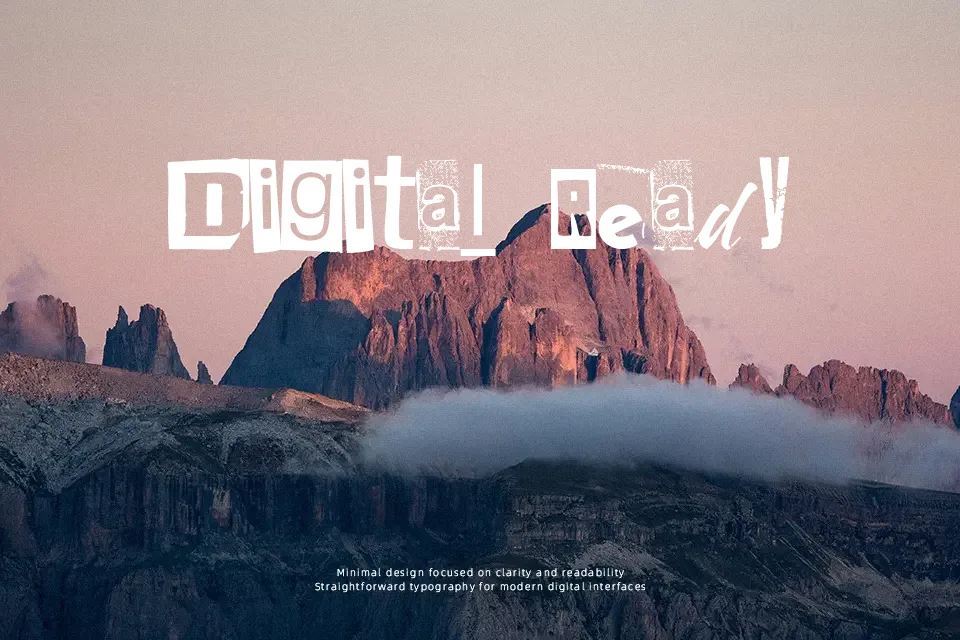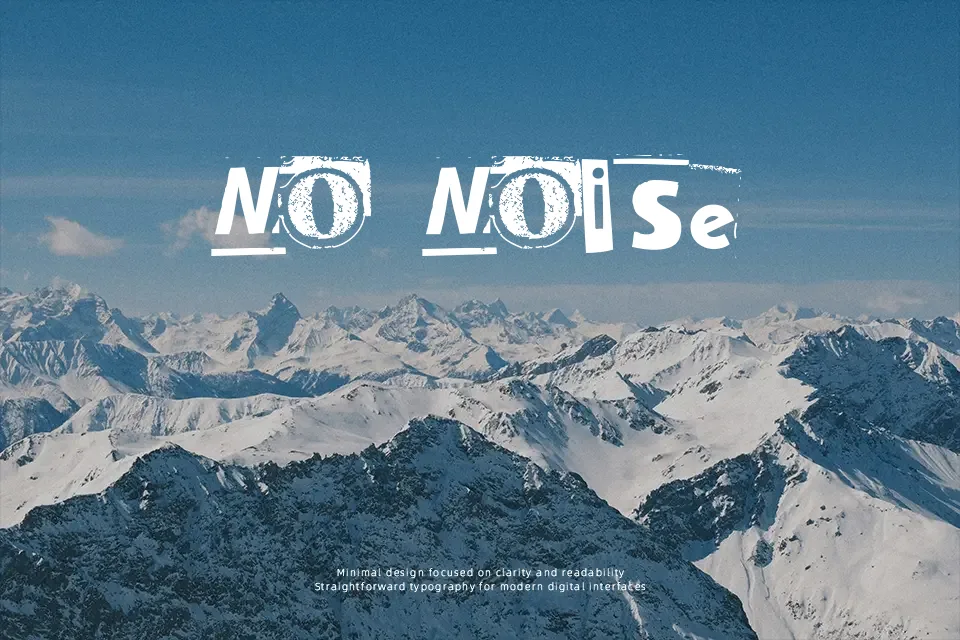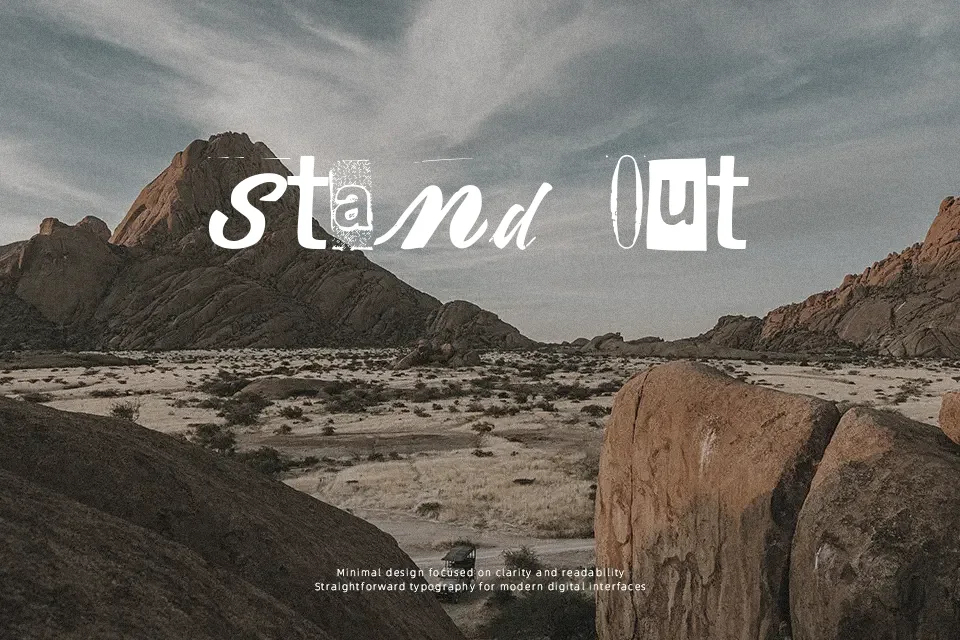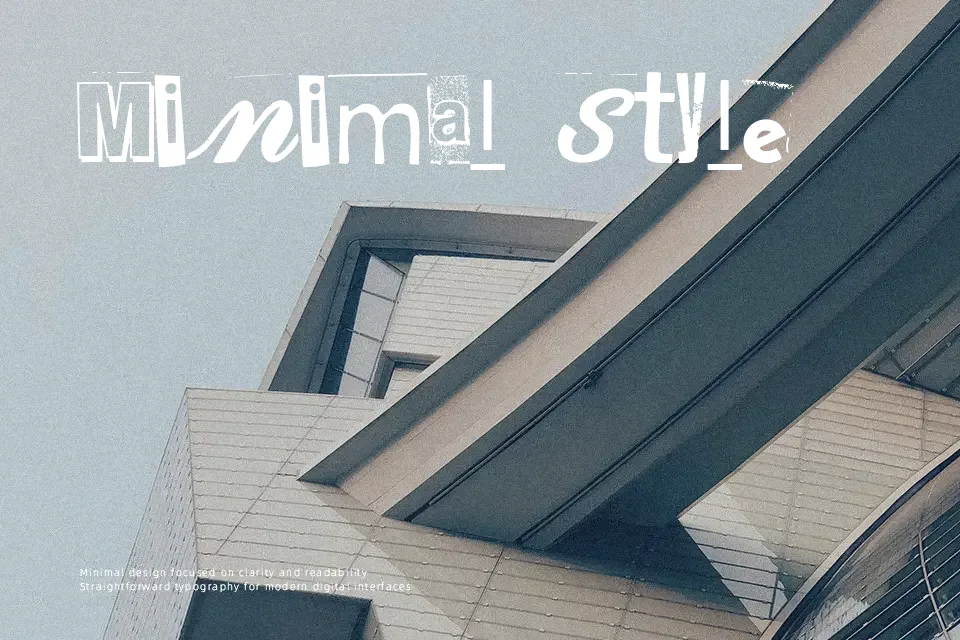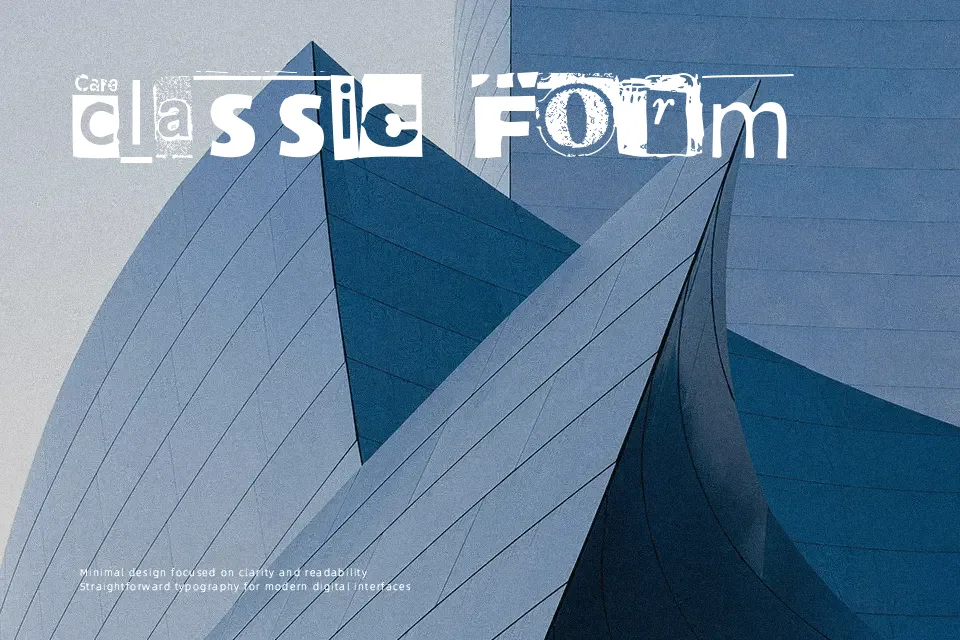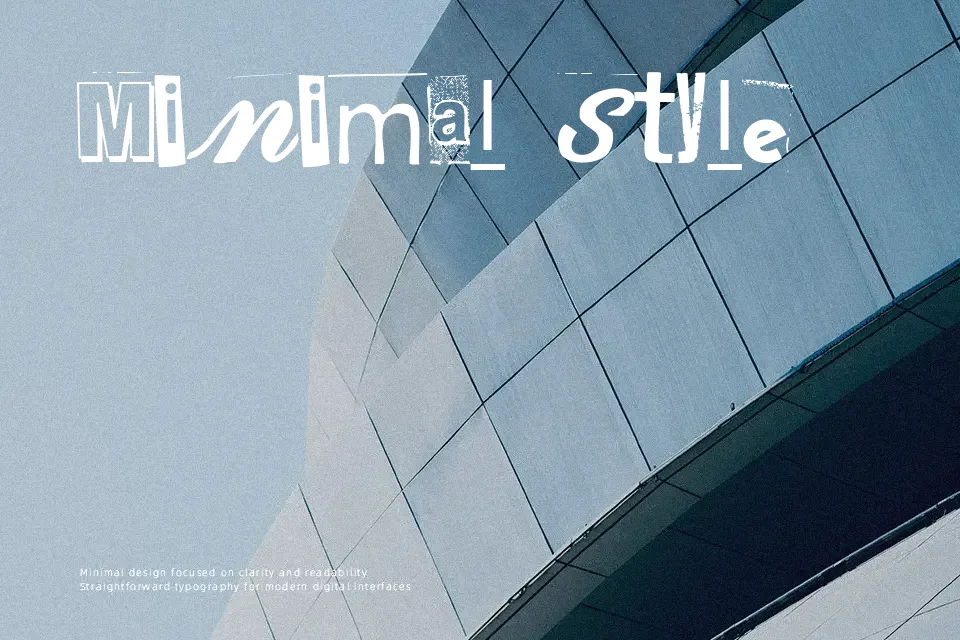
Anonymous Clippings Font
Designed by Centric Studios
Anonymous Clippings uses irregular, sharply cut shapes and uneven baselines to imitate letters pieced together from newspaper clippings, giving text a rough, distorted feel. The strokes are heavy and high-contrast, spacing is inconsistent on purpose, and characters vary in size, so headlines feel noisy and unpredictable rather than clean or balanced. It works well for horror artwork, thriller book covers, gritty band posters, and Halloween promotions where a chaotic, ransom-note energy is desirable. However, it becomes tiring and hard to read in long text or small sizes, and it does not suit professional or corporate communication. Use it sparingly as a graphic accent rather than a general-purpose typeface.
horror movie posters and titles
halloween event flyers and banners
grunge or punk band artwork
zines and underground event graphics
corporate reports or presentations
formal branding systems
user interfaces or app text
Perfect for advertising, headline, and logo, with a creative and decorative style.